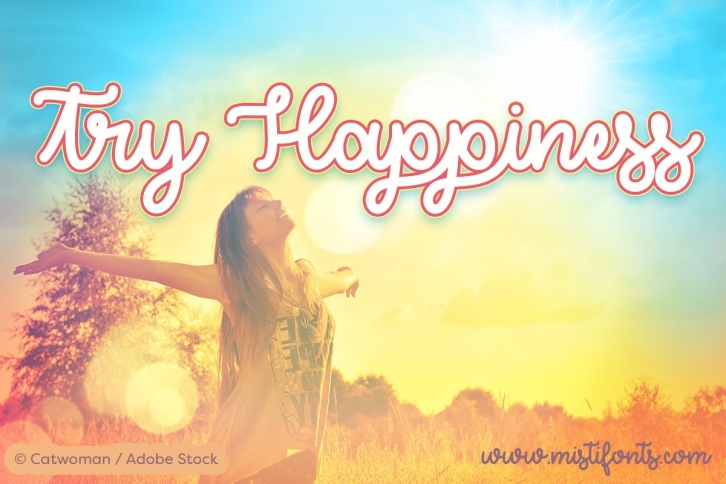
Try Happiness is a trendy and unique font with an authentic style. It was designed by Misti Fonts and it's a great choice for creative people who need such a font. It was released on February 25, 2017 and the file size is 10.30 MB. Try Happiness will add an organic vibe to any design idea!